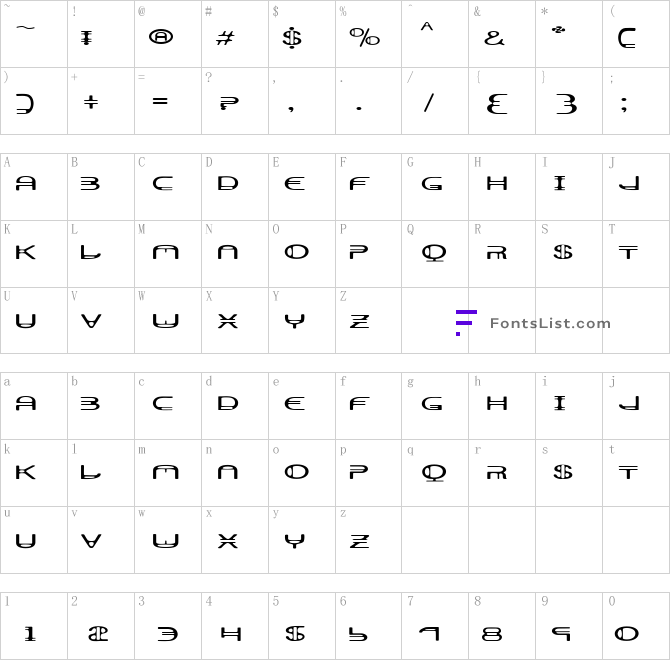
- Font Name:Aerator
AeratorA.ttf is a very beautiful artistic font, AeratorA.ttf is widely used in the design and printing of various books and pictures,AeratorA.ttf has a strong visual impact,AeratorA.ttf is a commonly used font in newspapers, magazines and books, and is used in posters, e-commerce Poster design, store design, logo design, font design and other fields.AeratorA.